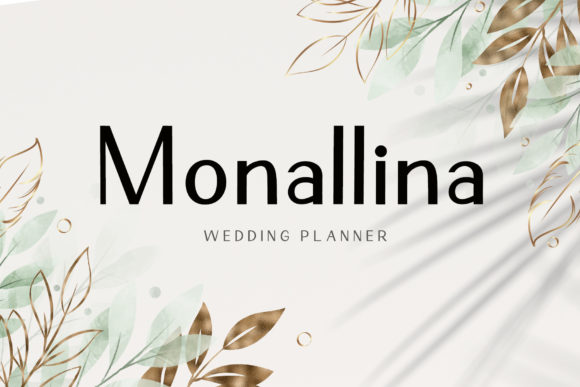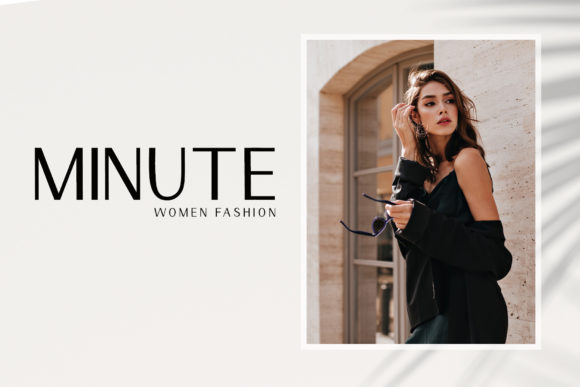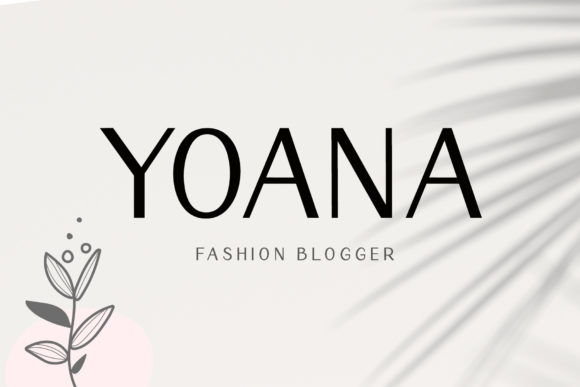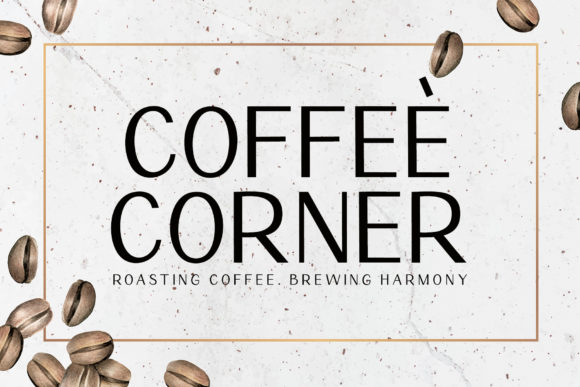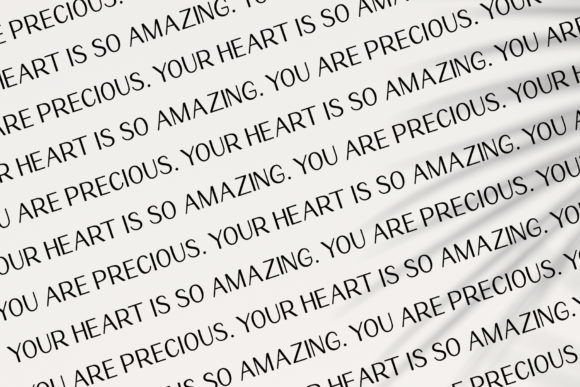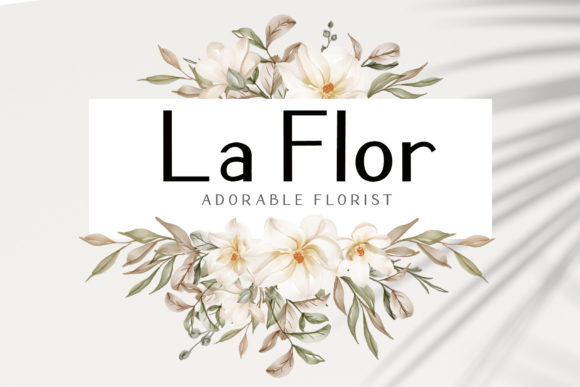
Introduction to Marqana Font
Have you ever been in the middle of a creative project, staring at a blank screen, searching for the perfect design resource to elevate your work? The thrill of the hunt, the excitement of discovering something new, and the satisfaction of bringing your vision to life are all part of the design process. But what happens when you stumble upon a font that not only completes your design but also sets it apart from the rest?
Enter the Marqana Font, an elegant and modern sans serif font that’s about to become your new go-to design companion. With its high-quality design and transparent background, this font is ideal for writing web designs, business cards, or pretty much anything else that requires a unique touch. And the best part? It’s available for free download, making it a valuable asset for designers of all levels.
Key Features of Marqana Font
- High-quality, elegant design making it perfect for creative projects and presentations.
- Features a transparent background, allowing for easy customization and integration into designs.
- Includes a wide range of characters, including uppercase and lowercase letters, numbers, and punctuation.
- Designed with a high resolution of 300 DPI, ensuring crisp and clear display in various design applications.
- Perfect for designers and artists looking for a unique and stylish design resource for their creative projects.
Honest Review: Marqana Font
As a designer, I’m always on the lookout for high-quality fonts to elevate my creative projects. Recently, I came across the Marqana Font, and I was impressed by its elegant design and versatility.
Here’s what works well: ✨ Marqana Font has a sleek, modern aesthetic that’s perfect for a variety of design projects, from branding to digital products. The font’s clean lines and rounded edges make it easy to read, even at small sizes. Additionally, the font includes a transparent background option, which is a huge plus for designers who want to create seamless designs.
The font also comes with a free download option, making it an excellent resource for designers on a budget. However, I did encounter a few limitations: ⚠️ the font only includes uppercase letters, which may not be ideal for projects that require a full character set. Additionally, the font may not be suitable for projects that require a lot of bold or italic text.
- High-quality design suitable for various creative projects
- Includes transparent background option
- Only includes uppercase letters
- May not be suitable for projects with bold or italic text
Overall, I’m impressed with the Marqana Font, and I would definitely consider using it for future design projects. While it may have some limitations, its unique design and free download option make it a valuable resource for designers looking for a high-quality font.
Experiment with different font sizes, colors, and styles to create unique visual effects. Combine the Marqana Font with other design elements to elevate your creative projects.
The Marqana Font is ideal for various applications, including logo design, branding, and digital marketing materials. Its high-quality design makes it perfect for presentations, documents, and social media graphics.